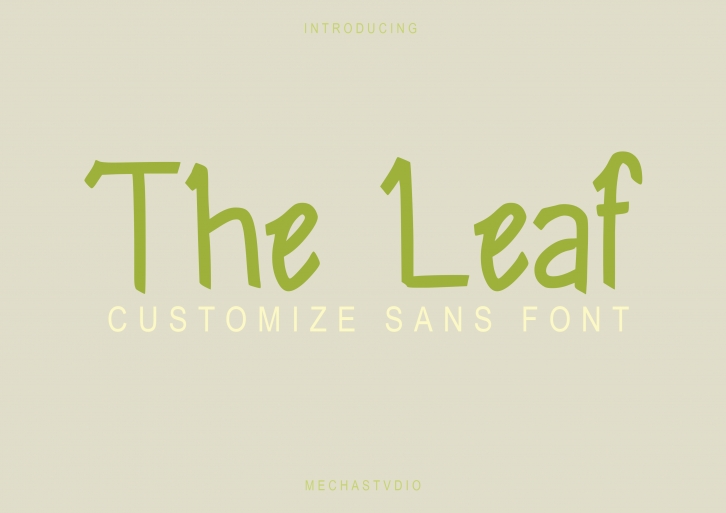
The Leaf is a playful and unique display font perfect for logos, branding, stationery, poster designs, social media posts, and more. Add it to your fonts library, and it will become your favorite in no time at all!